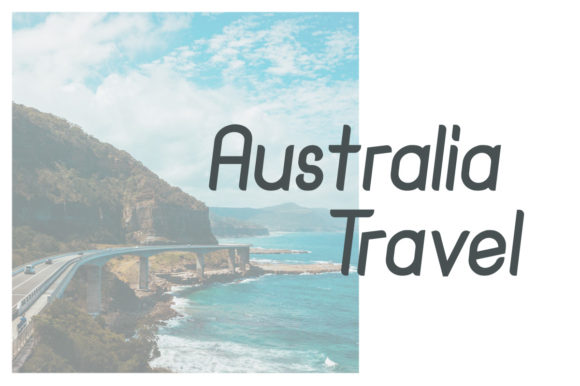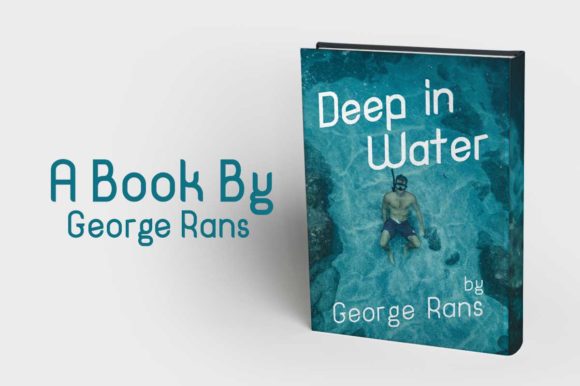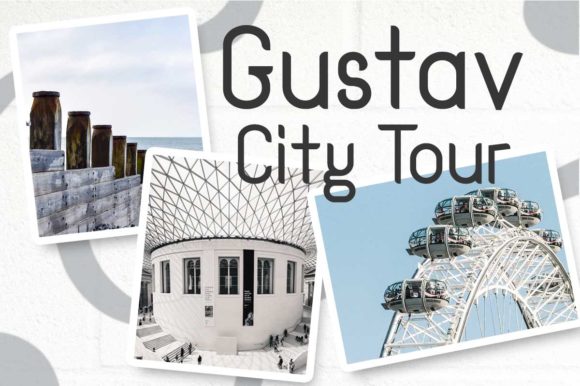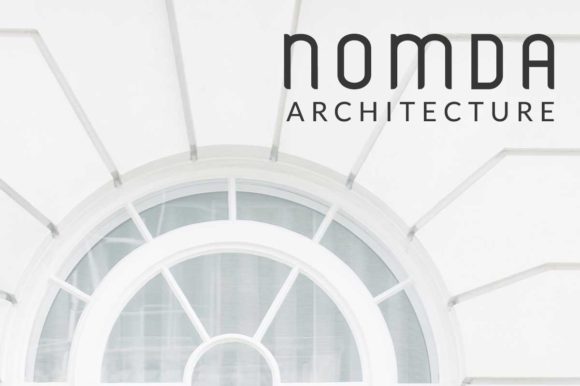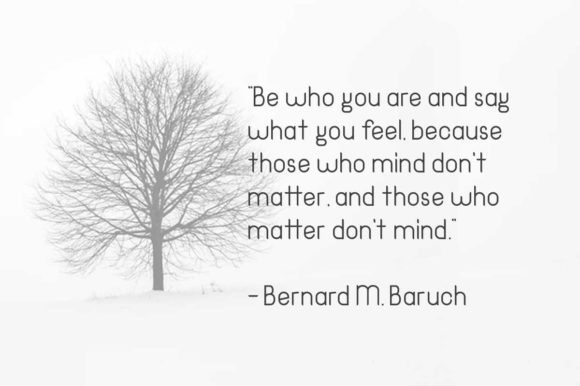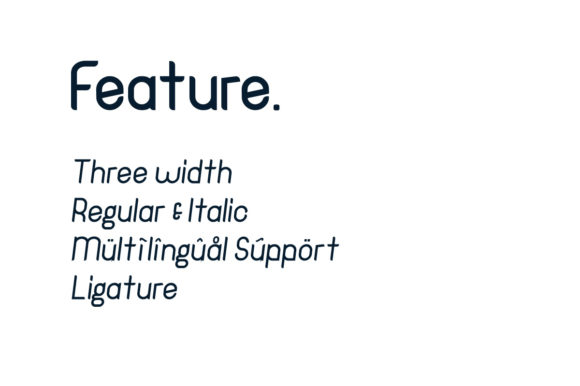
Introduction to Hinge Font
Inspired by travelling and the outdoors, Hinge is a bold and fun sans serif font that will inspire you.
Inspired by travelling and the outdoors, Hinge is a bold and fun sans serif font that will inspire you!
Key Features of Hinge Font